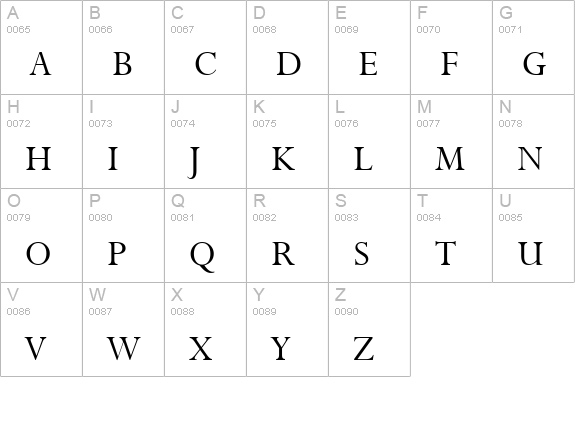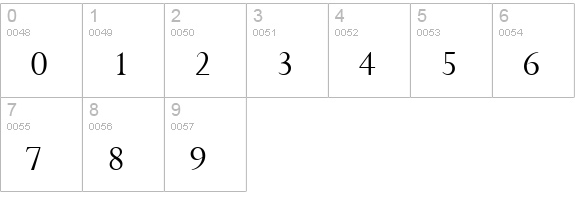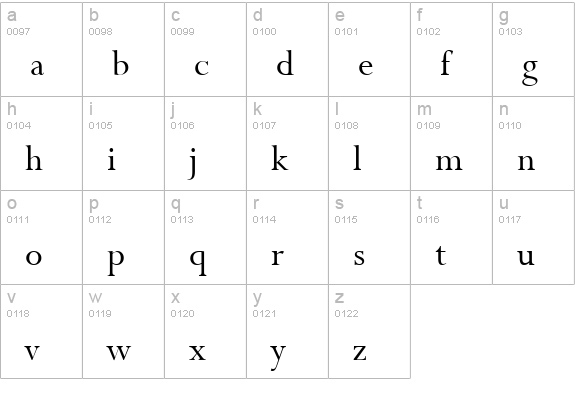
Rapid Normal is the standard, neutral variant in the Rapid typeface family \xE2\x80\x94 well suited to general body text, paragraphs, and standard typographic work.
Rapid Normal font is a sleek and modern typeface that exudes a sense of speed and efficiency. Its clean lines and balanced proportions make it ideal for a wide range of design projects, from logos and branding to headlines and body text. With its bold yet approachable aesthetic, Rapid Normal font is perfect for conveying a sense of professionalism and expertise. Whether you're designing for a corporate client or crafting a personal project, this font will elevate your work to new heights. The versatility of Rapid Normal font is further enhanced by its extensive character set, which includes a full range of uppercase and lowercase letters, numerals, punctuation marks, and special characters. This ensures that you have all the tools you need to create visually stunning and engaging designs. But what makes Rapid Normal font even more appealing is the fact that it is freely available to download at FontsMarket.com. This means that you can access this impressive typeface without any cost, making it an excellent choice for designers on a budget or anyone looking to add a touch of professionalism to their work. So why wait? Download Rapid Normal font today and experience the power of this sleek and modern typeface. With its clean lines, balanced proportions, and the added bonus of being free, it's a font that is sure to take your designs to the next level.